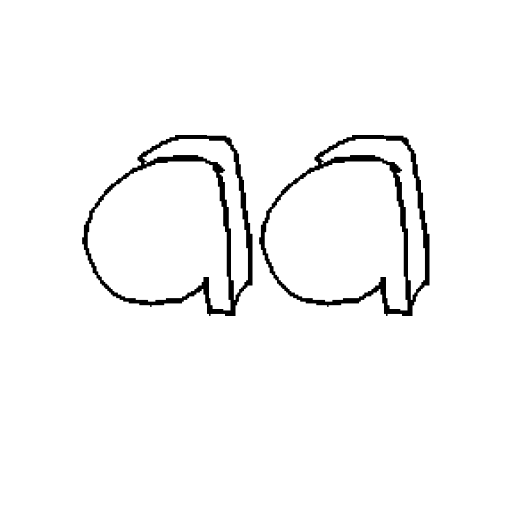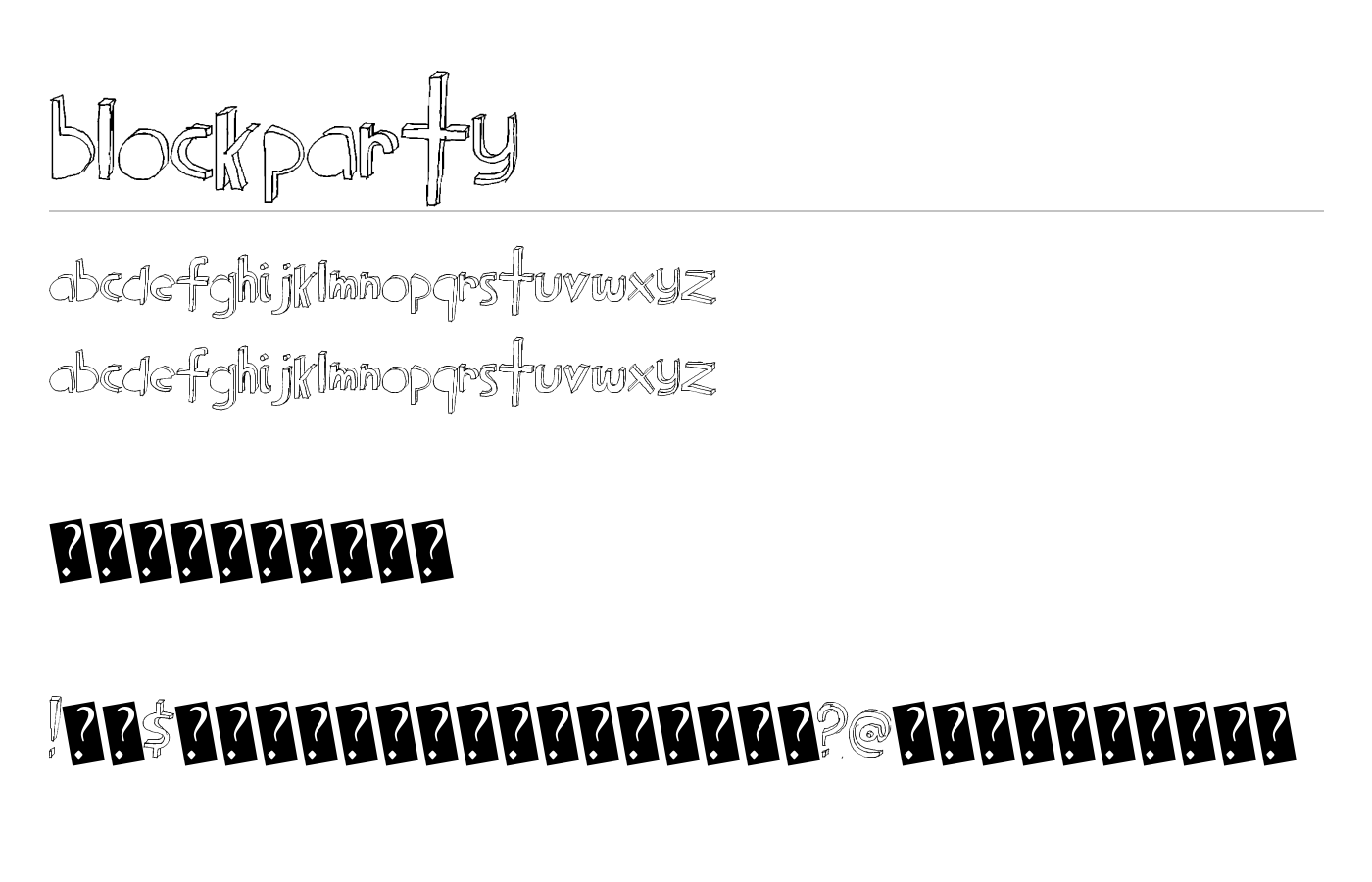
BlockParty is a quirky, hand-drawn sans serif font with a playful and informal vibe. Its irregular, sketch-like strokes and uneven shapes give it a casual, artistic feel perfect for creative projects, fun branding, and eye-catching headlines. This font works well in designs that want to convey personality and a lighthearted mood rather than strict professionalism.
BlockParty Font
About BlockParty Font